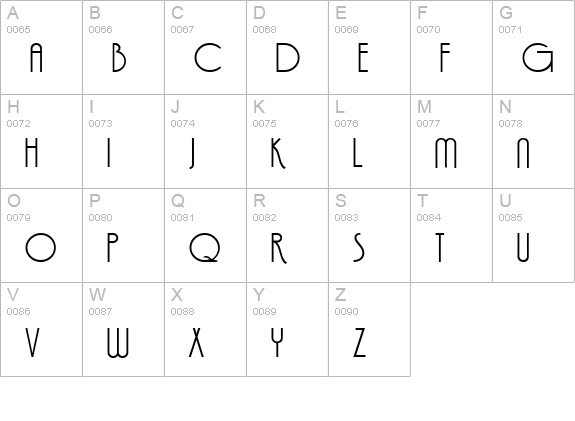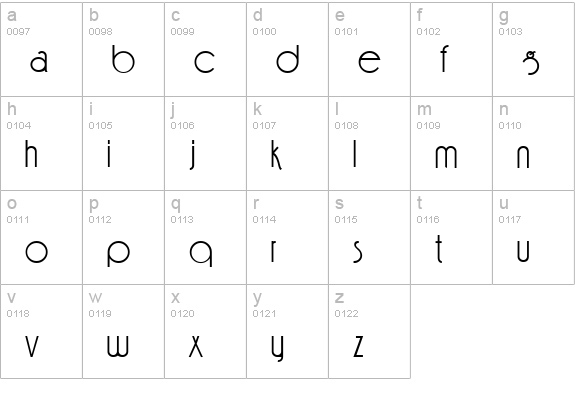
Feena Casual Font Details
Feena Casual font is a charming and versatile typeface that exudes a casual and friendly vibe. Its playful yet legible design makes it perfect for a wide range of projects, from branding to social media graphics. With its soft curves and clean lines, Feena Casual font adds a touch of warmth and personality to any text. Whether you're creating invitations, posters, or logos, this font will surely stand out and make a lasting impression. And the best part? Feena Casual font is completely free to download at FontsMarket.com. This means you can start using this delightful font in your designs right away without having to worry about any costs. Don't miss out on the opportunity to enhance your projects with the unique charm of Feena Casual font – download it now and let your creativity shine!